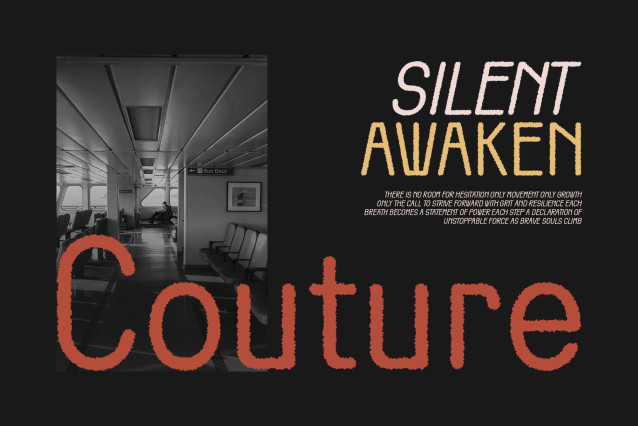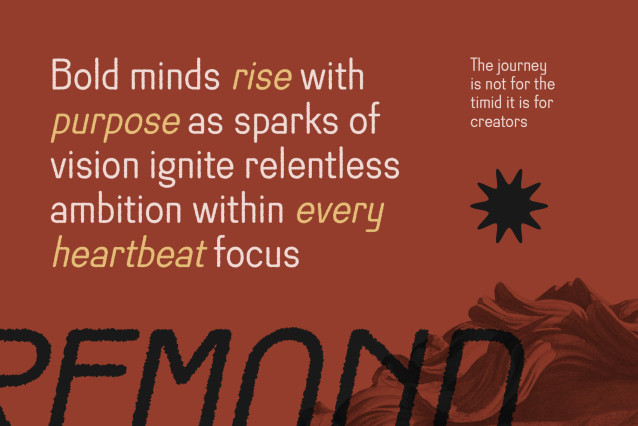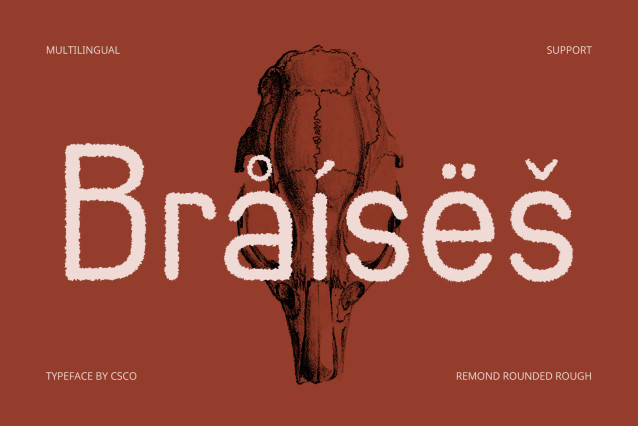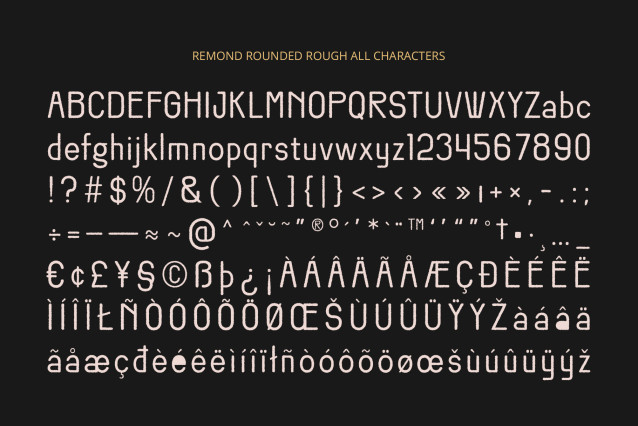
Remond Rounded Rough Font
Remond Rounded Rough – This is a classic sans-serif typeface that embraces rounded, condensed letterforms for a soft, approachable look. Its compact structure ensures strong readability while maintaining a friendly and casual tone.
What sets this font apart is its rough texture, which introduces an aged, slightly distressed effect to the otherwise clean shapes. This worn-out style evokes the feel of retro prints, weathered signage, and analog textures, giving your designs a nostalgic personality rooted in classic design traditions.
Retro Vibe with Modern Versatility
By combining vintage warmth with contemporary shapes, this cozy and nostalgic retro font is perfect for everything from logos and packaging to posters, labels, and apparel. It brings both boldness and friendliness, ideal for brands or creatives looking to convey a sense of authenticity, reliability, and timeless charm.